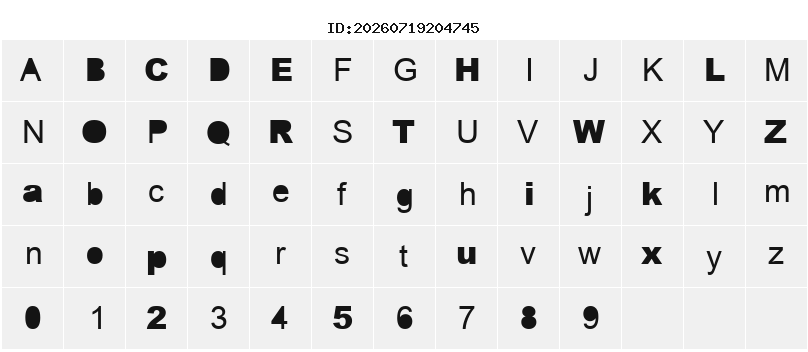
Error Preview
• Font Name: Error
About Error.ttf
Error.ttf is a modern, elegant sans-serif font designed for ultimate readability and visual harmony. Perfect for branding, headlines, web design, and print materials.